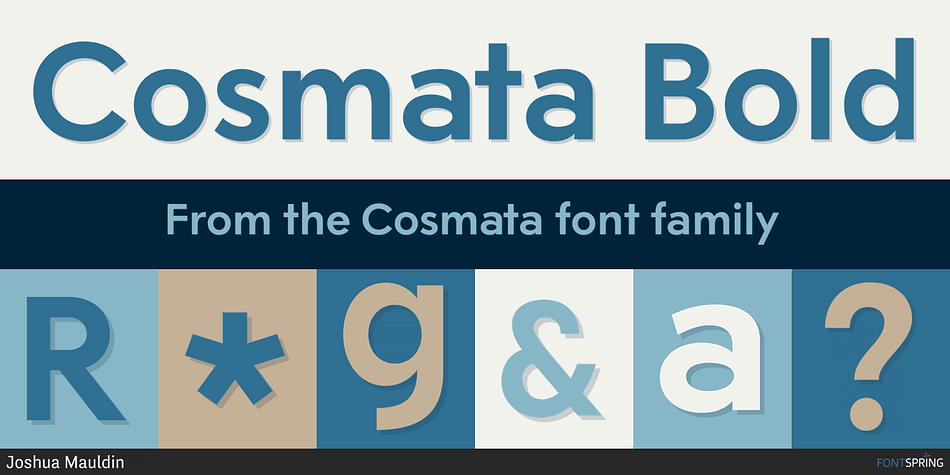
Cosmata Bold
Designed by Joshua Mauldin, Cosmata is a sans serif font family. This typeface has ten styles and was published by Joshua Mauldin.
Cosmata is geometric sans serif family of 10 fonts suitable for both display and reading use. Inspired by Futura, Cosmata developed its own complex, unique life.
To that end, I’ve included alternate letterforms for a finely-tailored typographic experience. The rhythm, kerning, and spacing have been lovingly crafted for an elegant reading experience.